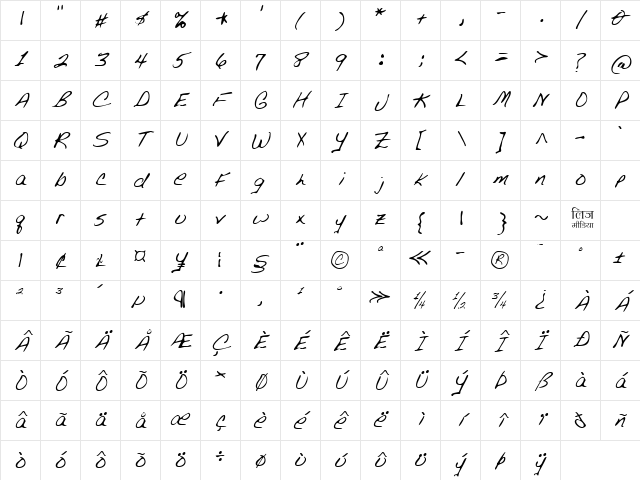
LEHN076 Regular Free Font
LEHN076 Regular
Design Context for LEHN076
LEHN076 is a composed and adaptable typeface that performs quietly and consistently across a wide range of design contexts.